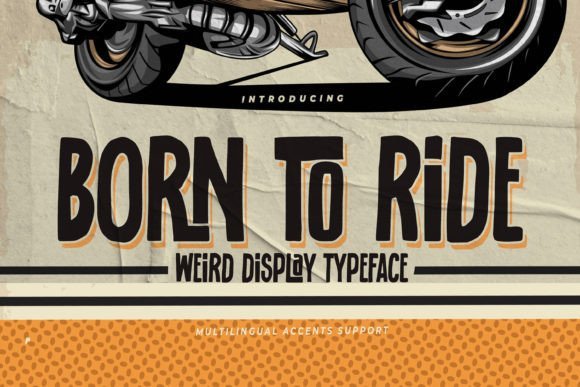
The Perfect Ride for Your Design: Born to Ride Font
You know that moment when you’re browsing through fonts and stumble upon one that just makes you feel like you’re cruising down a winding road on a sunny day? That’s exactly what happened when designers first laid eyes on the Born to Ride Font. This quirky display font is the perfect addition to any design project that needs a little extra oomph.
Born to Ride Font is designed to be versatile, working seamlessly in a wide range of contexts, from bold headlines to subtle background text. Its unique aesthetic is sure to grab attention and leave a lasting impression. For designers, the Born to Ride Font is a valuable asset, offering a fresh and exciting way to add personality to their work.
Born to Ride Font Key Features
- Font Family: Born to Ride is a custom font designed specifically for motorcycle enthusiasts, featuring a bold and rugged aesthetic.
- Unique Characteristics: Born to Ride features a distinctive, hand-drawn design with bold lines, rugged textures, and a distressed finish, evoking the spirit of the open road.
- Character Set: Includes a wide range of characters, including uppercase and lowercase letters, numbers, punctuation marks, and special symbols, ensuring versatility in various applications.
Review of “Born to Ride Font”
Overall, I think “Born to Ride Font” is a solid choice for designers looking to create a bold and edgy vibe. ✨ The font’s distressed, vintage aesthetic works particularly well for motorbike-themed designs, or anything else that needs a rugged, rebellious feel.
The font’s versatility is another major plus. ✨ It comes in a range of weights and styles, making it easy to customize to suit your design needs. Plus, it’s highly legible, even at small font sizes.
What Doesn’t Work So Well:
One of my biggest concerns with “Born to Ride Font” is its limited character set. ⚠️ It’s not suitable for text-heavy designs or languages that require a lot of special characters. Additionally, the font can sometimes look a bit over-processed, which may not be ideal for designers looking for a more subtle, nuanced look.
Limits:
- Limited character set (no Cyrillic or Greek support)
- Not suitable for text-heavy designs
- May look over-processed at times
While “Born to Ride Font” may not be the perfect choice for every design project, it’s a great option for designers looking to add a touch of rugged, vintage charm to their work. With its versatility and bold aesthetic, it’s definitely worth considering for the right project.
The “Born to Ride Font” is ideal for creating bold and eye-catching text for:
– Motorcycle-themed designs
– Automotive logos and branding
– Action-packed movie titles and posters
For optimal results, use the font in bold and large sizes to emphasize the text.